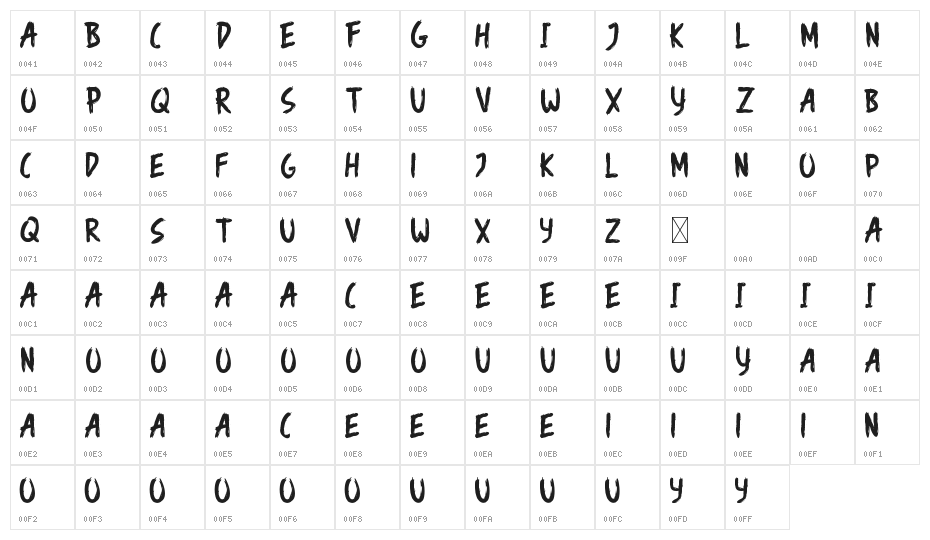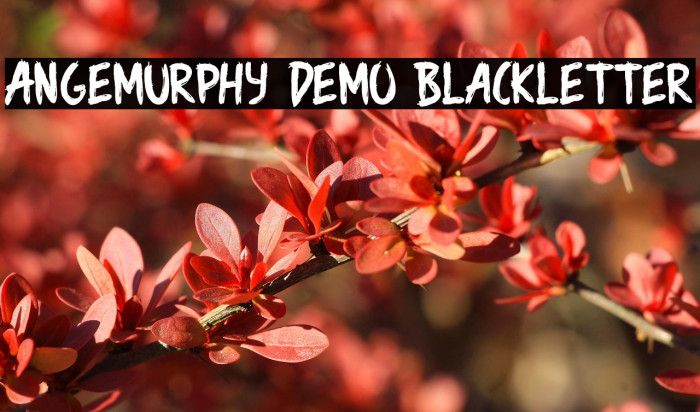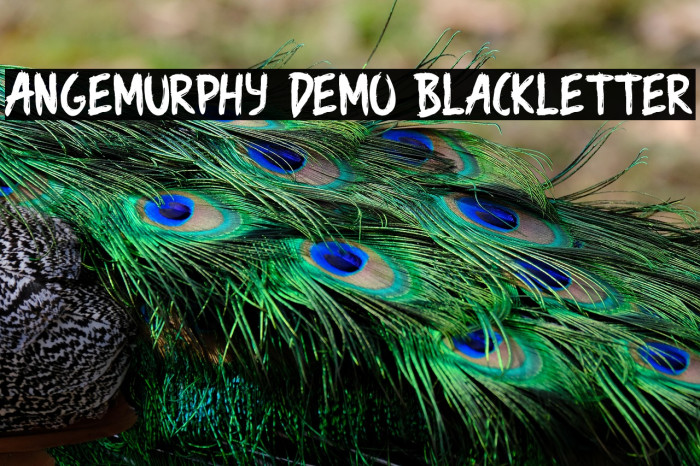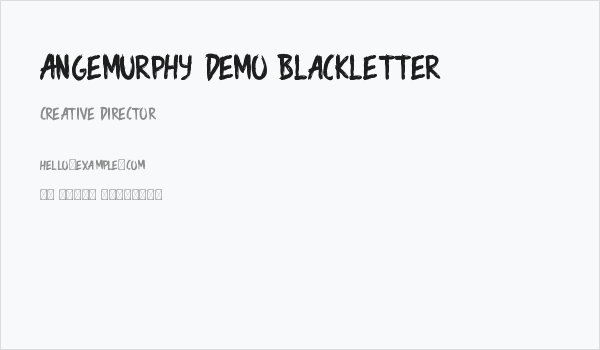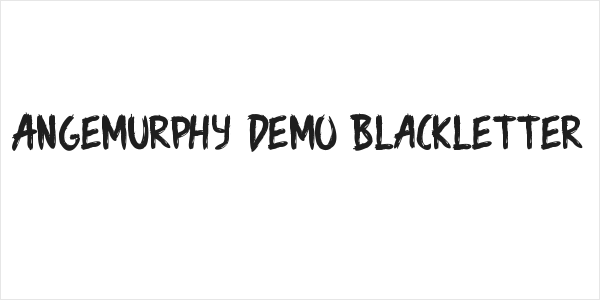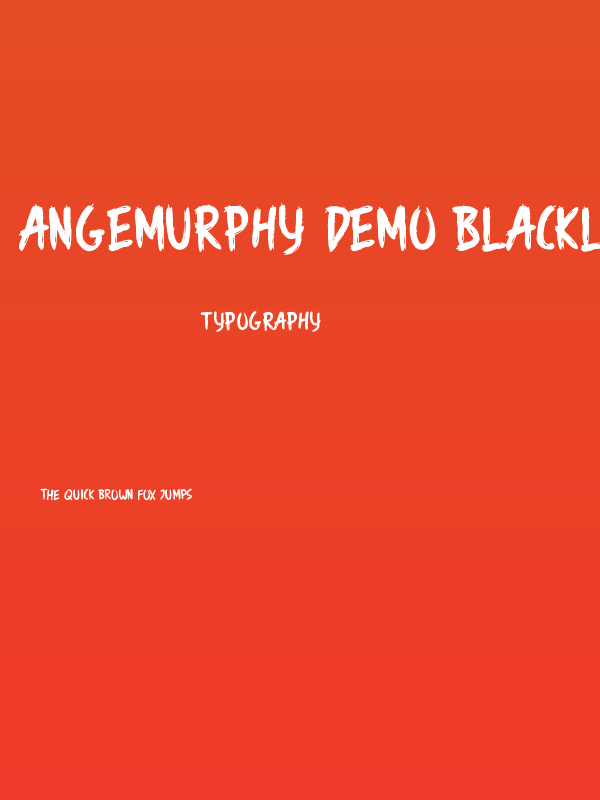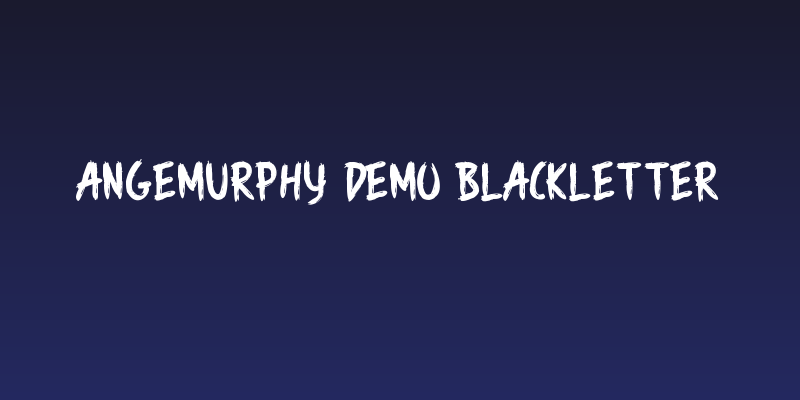
Angemurphy Demo Blackletter Font
Angemurphy Demo Blackletter Description
This font exhibits a bold and expressive style, characterized by its brush-like strokes and dynamic appearance. The letters are crafted with a sense of movement, giving them an energetic and artistic flair. The uppercase and lowercase characters maintain a consistent style, with thick strokes and slightly irregular edges that enhance the hand-drawn aesthetic. The numbers and special characters follow the same design principles, ensuring a cohesive look across all elements. This font's unique style makes it stand out, offering a modern twist on traditional handwritten fonts.
| Overall Style | Modern, Artistic |
| Proposed Projects | Ideal for creative projects such as posters, branding, and social media graphics where a bold, artistic touch is desired. |